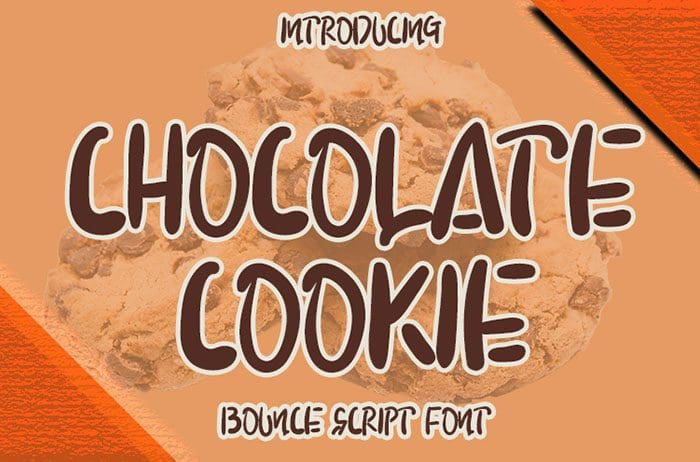
Chocolate Cookie Handwritten Font
Chocolate Cookie is a cute and casual handwritten font with an incredibly friendly feel. Use this gorgeous and unique font to bring any DIY project to life! Designed this font by Inermedia Studio. You can also search more freeĀ Handwritten Fonts.